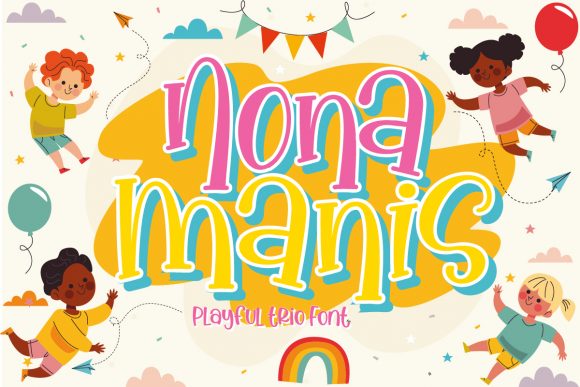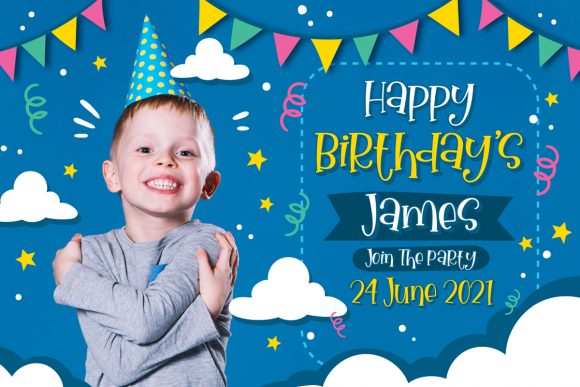
Nona Manis Font: A Cute Display Font for Playful Designs & Kids Branding
About the Nona Manis Font
Let us introduce you to Nona Manis Font, where timeless design meets modern craftsmanship. Nona Manis is a sweet and playful display font. Quirky and fun, this font is perfect for children themed designs, especially when combined with bright colors.
Nona Manis’s playful energy makes it ideal for children’s book titles, playful branding for toys or sweets, and eye-catching posters for events targeting a young audience. It also works well in short headlines for social media posts or website sections needing a touch of whimsy. However, its quirky forms are less suitable for large blocks of text or body copy; legibility suffers in long paragraphs. Avoid using it for UI elements or situations requiring high readability.
For effective pairings, consider a clean sans-serif like Open Sans for body text to balance its playful nature, or a classic serif such as Garamond for a touch of sophistication in supporting materials. A simple geometric sans-serif would also provide a strong contrast, while a delicate script font could add a layer of elegance depending on the project’s overall aesthetic.
Nona Manis projects a friendly, approachable personality; it’s charming but not overly childish, making it versatile for various projects where a lighthearted yet professional feel is desired.
Nona Manis Font Usage Examples
Nona Manis Font Example